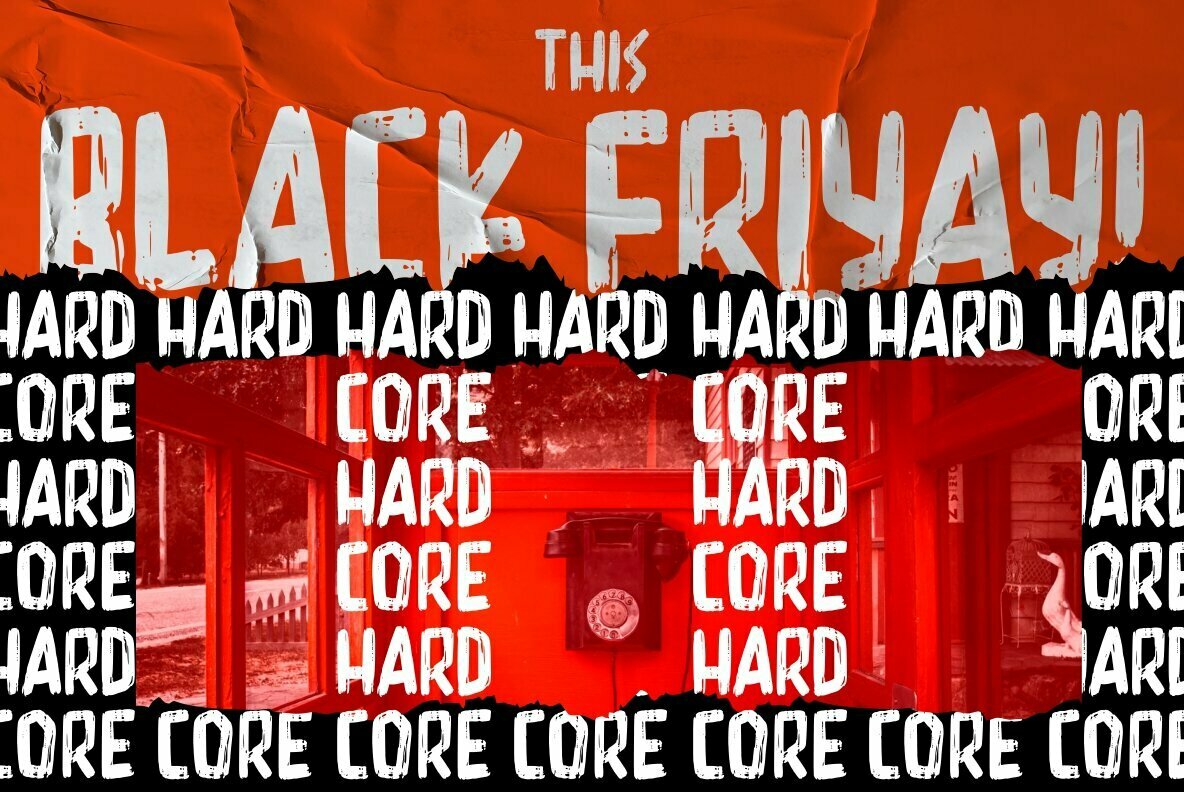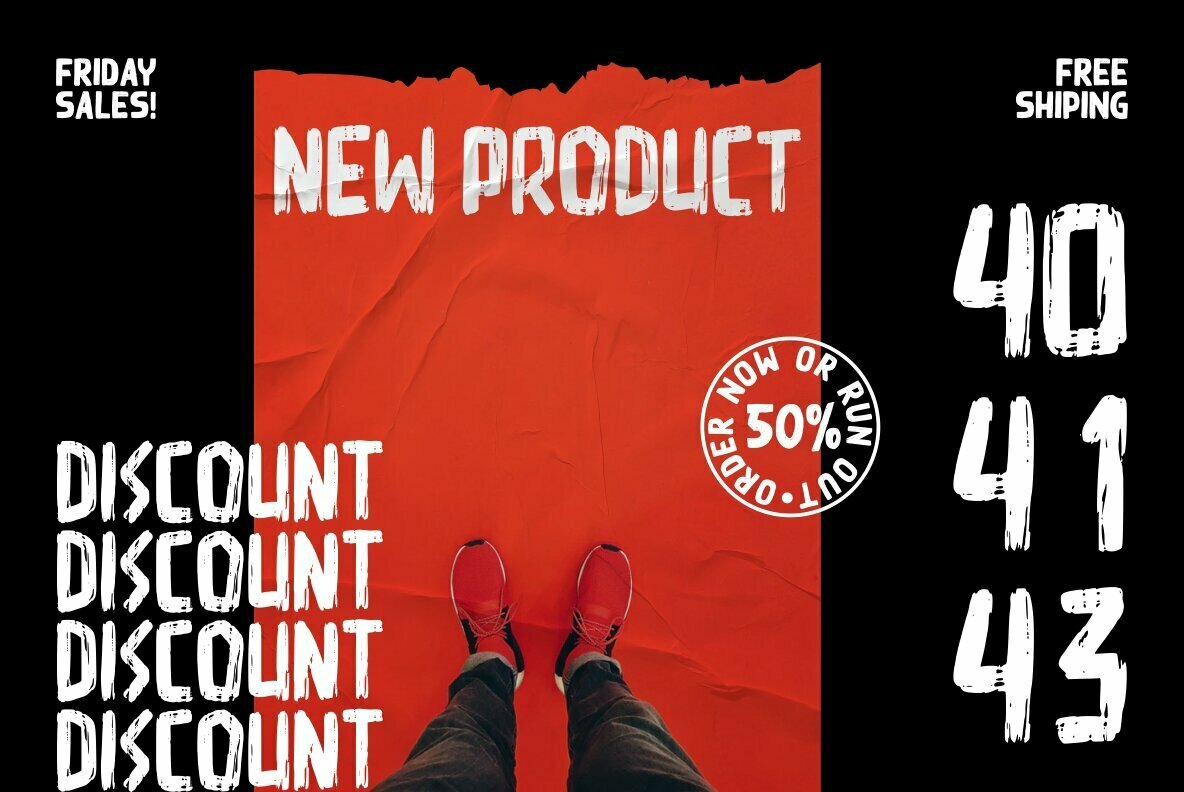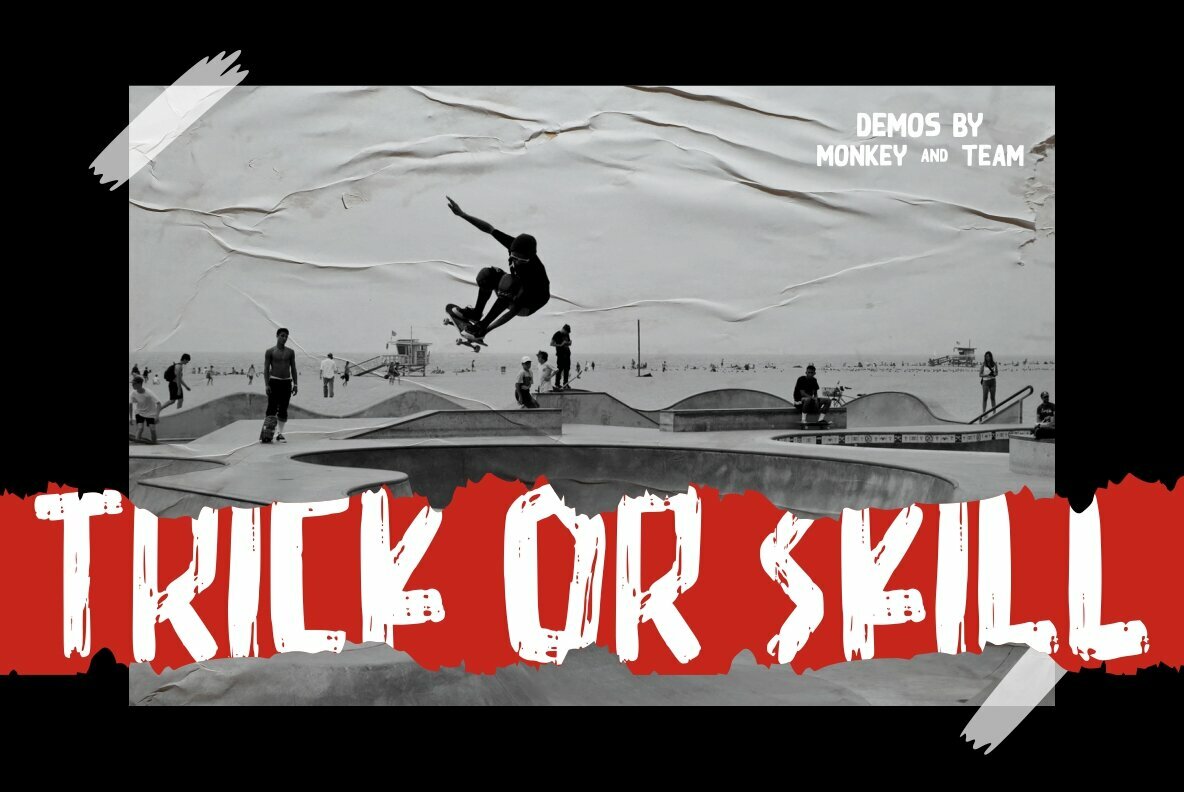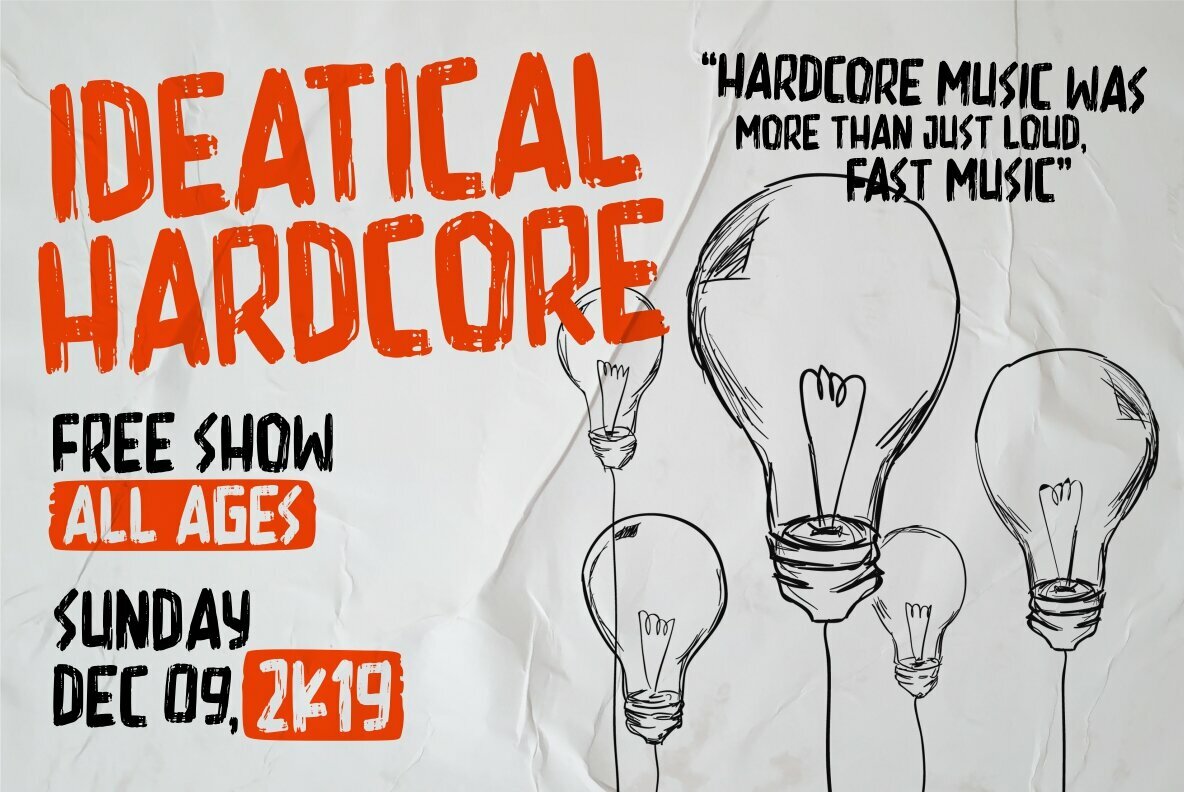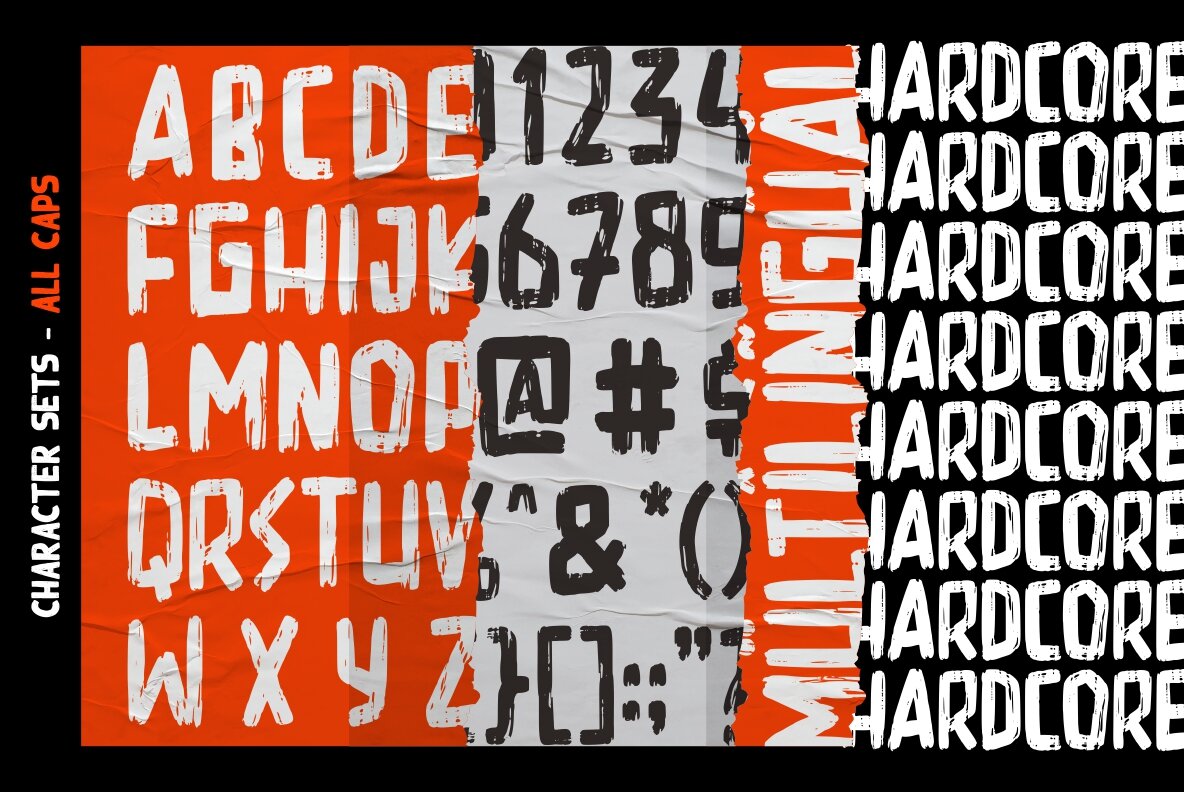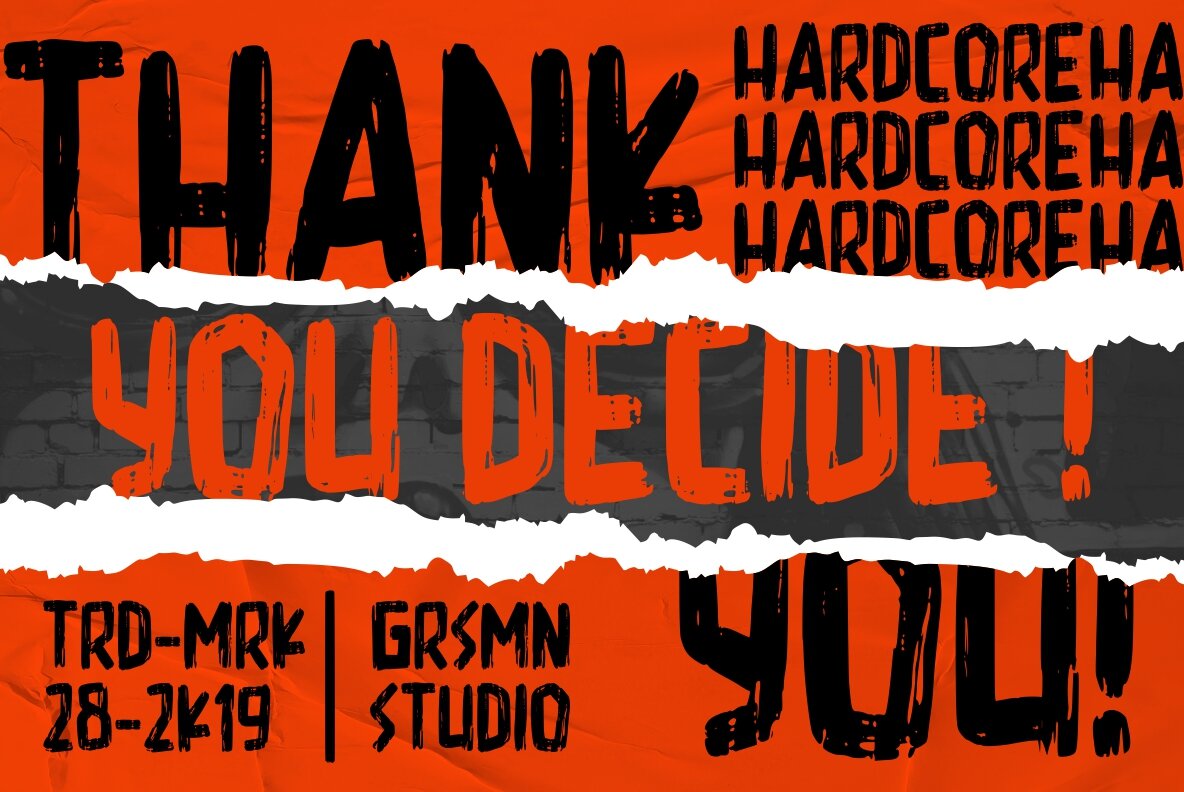
Hardcore: Urban Edge for Creative Typography
The Hardcore font by Risman Ginarwan infuses a contemporary urban flair into script typography. Ideal for an eye-catching appeal, it enhances the visual language of logo designs, brand imagery, product packaging, and more. Its stylish script adds character and distinction to your creative projects.
• All Caps Letters – Offers a modern, cohesive look.
• Numbers & Punctuation – Ensures comprehensive functionality.
• PUA Encoded – Facilitates easy access to stylistic elements.
• Multilanguage Support – Accommodates diverse linguistic needs.